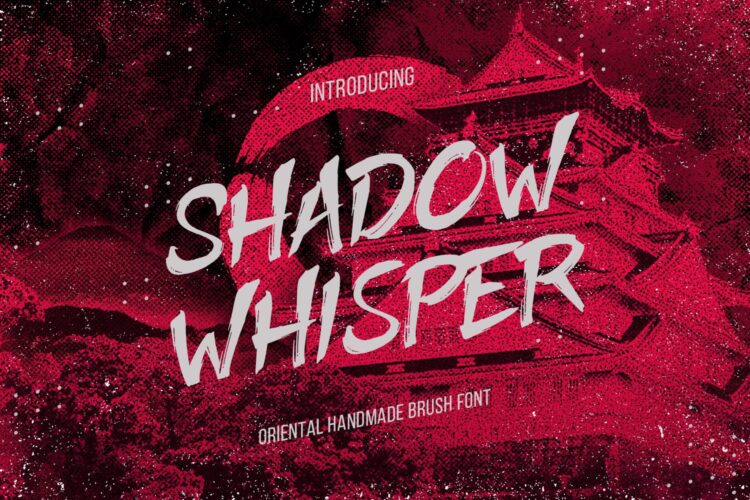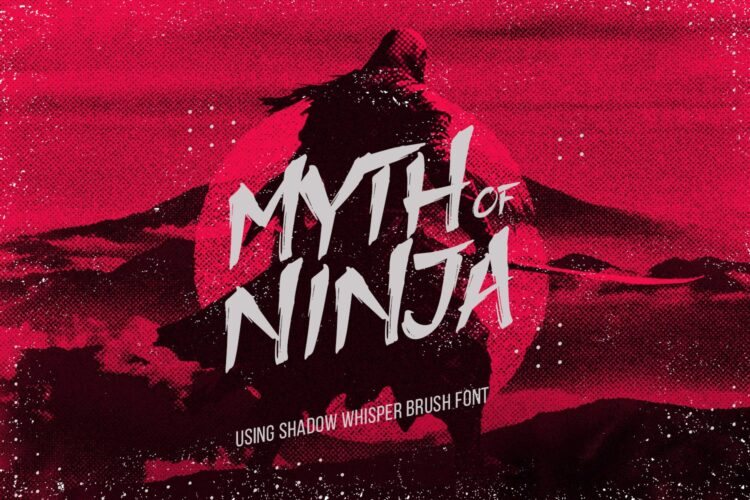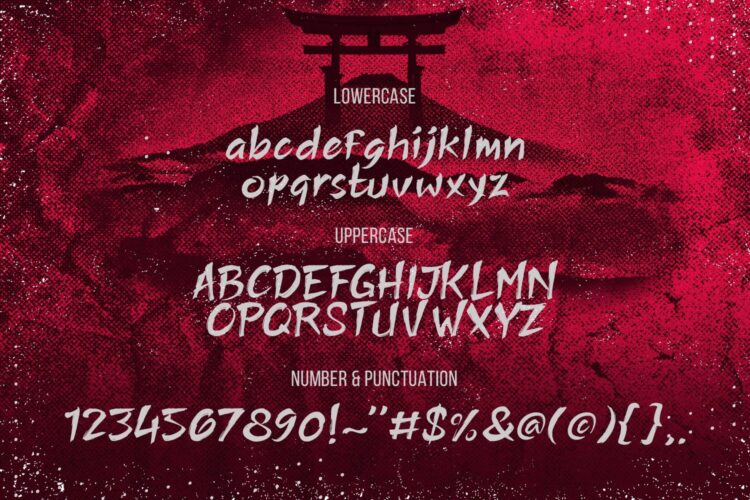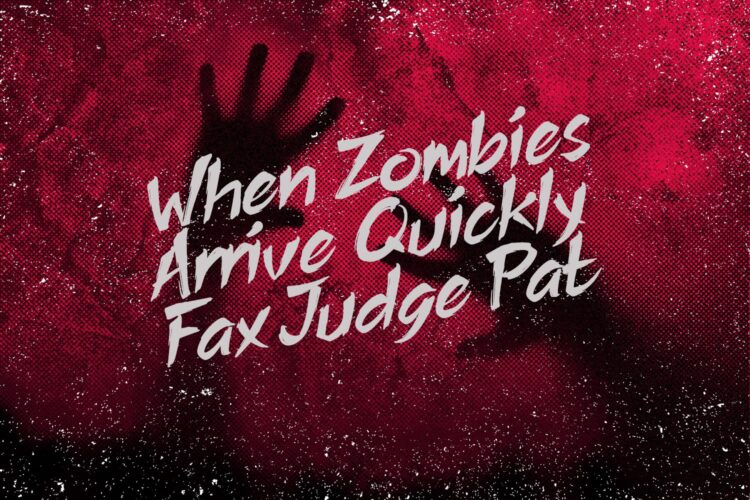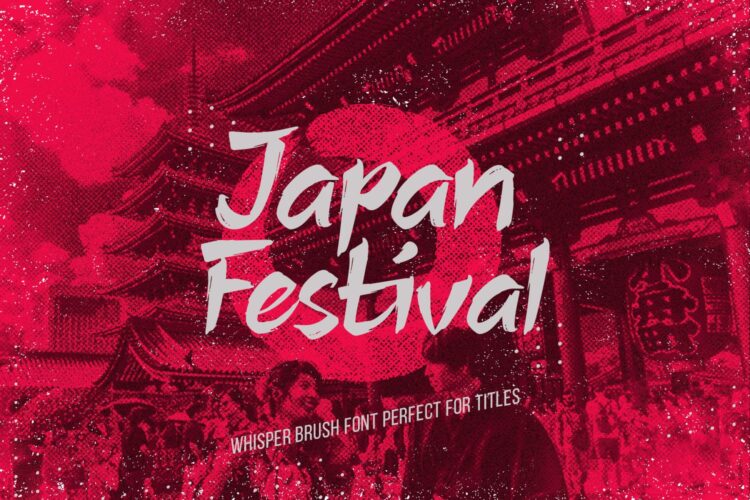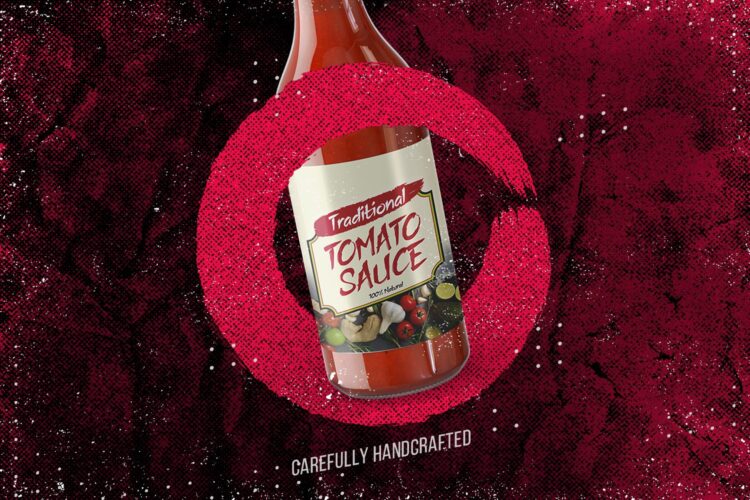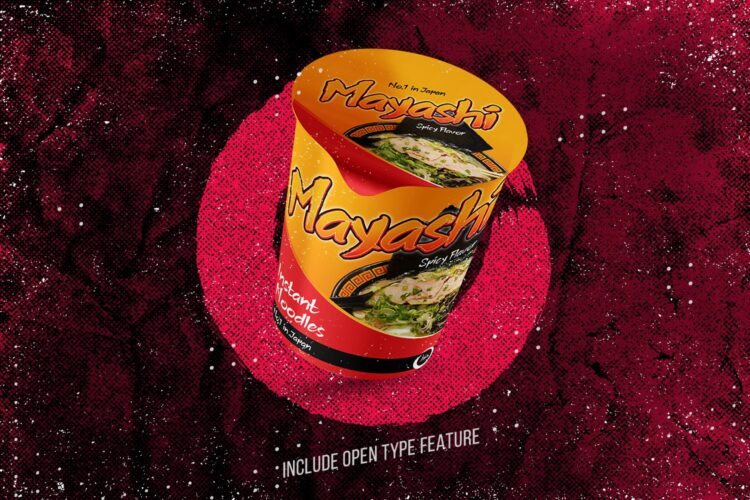
oriental handmade brush font
Shadow Whisper
Shadow Whisper – is a premium bold and smooth handmade brush font that combines the fluidity of hand-drawn strokes with a touch of spontaneity.
Its organic, slightly imperfect lines inspired by Japanese calligraphy create creativity, warmth, and authenticity that will captures attention.
Perfect for adding a premium touch to your creative projects such like Brands, Logo, Game tiltle, Cover Books, Poster and many more. 🐱‍👤 ✨